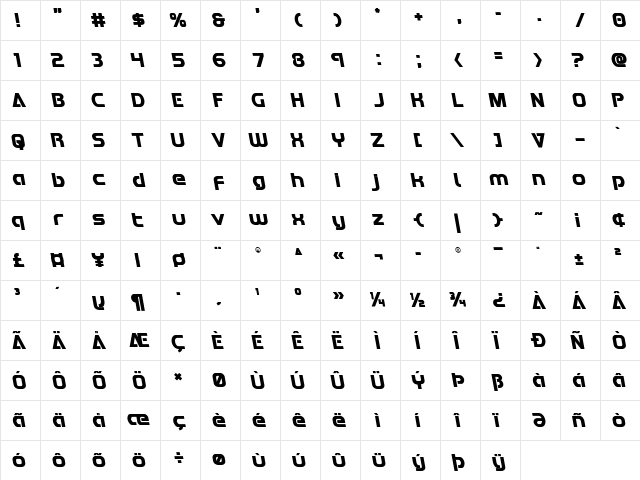
Redline Leftalic Italic
Design Context for Redline Leftalic Typeface
Redline Leftalic takes a measured approach to typography — its balanced proportions and neutral character make it a reliable workhorse for both digital and print work. The slanted form adds forward momentum and visual energy.